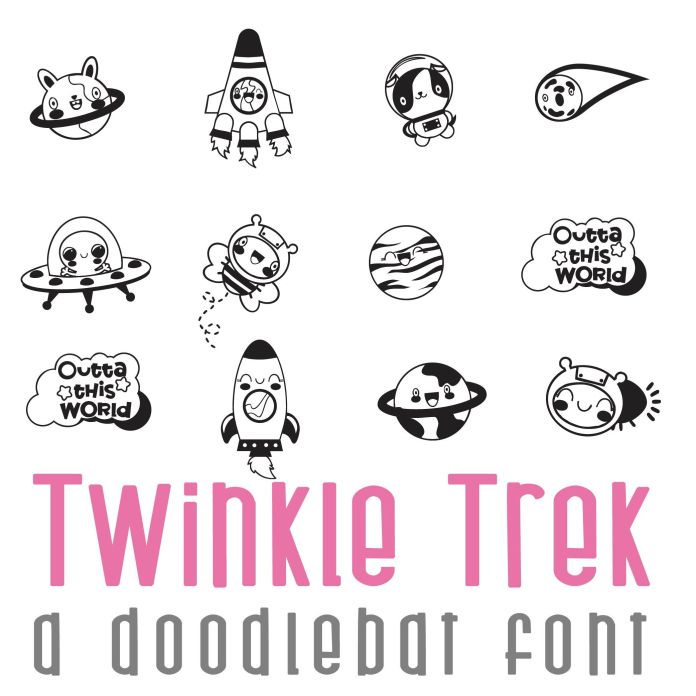
This adorable doodlebat features 26 kawaii style outer space elements, perfect for cards, crafts, decor, planner stickers, scrapbook pages, classrooms and more!